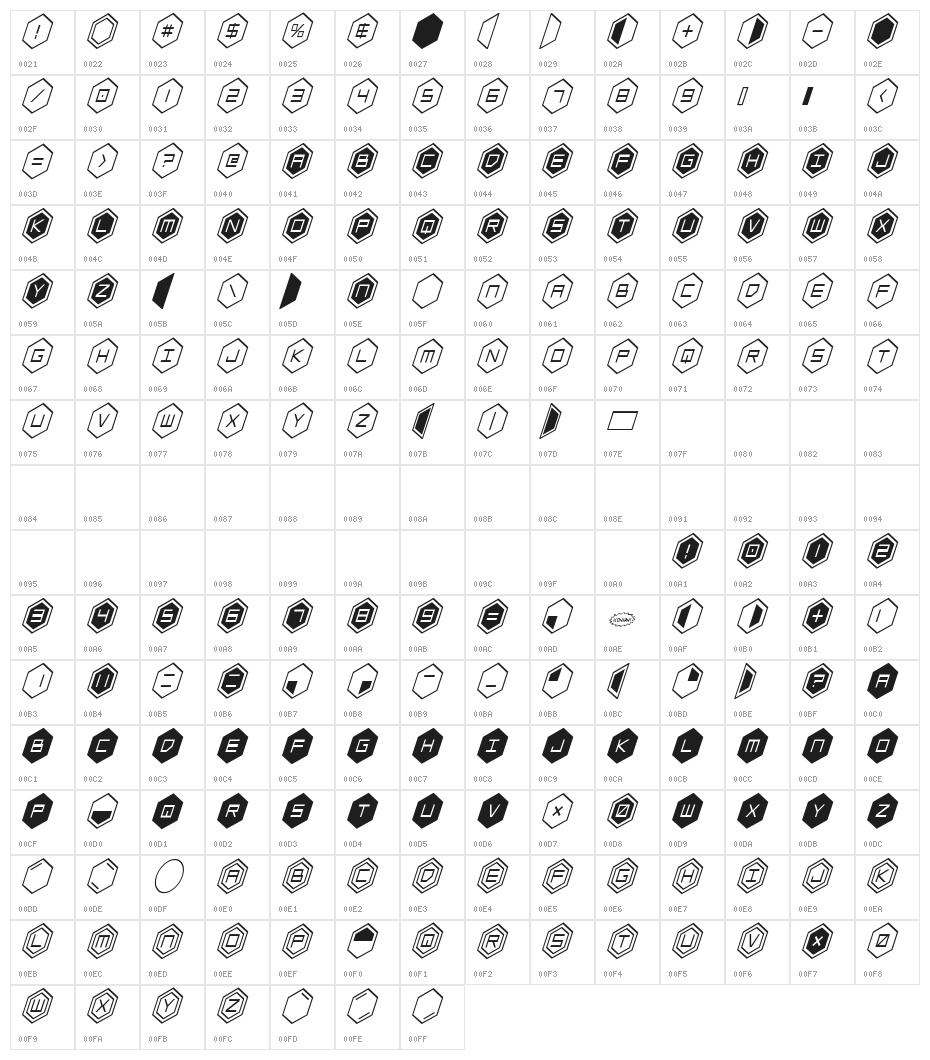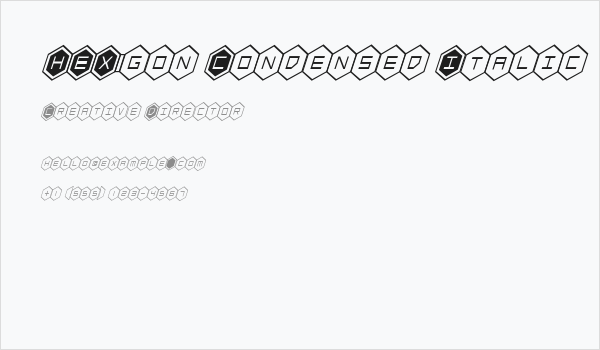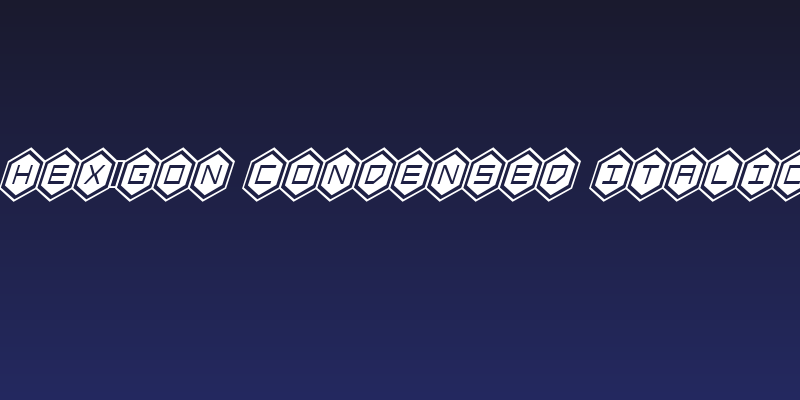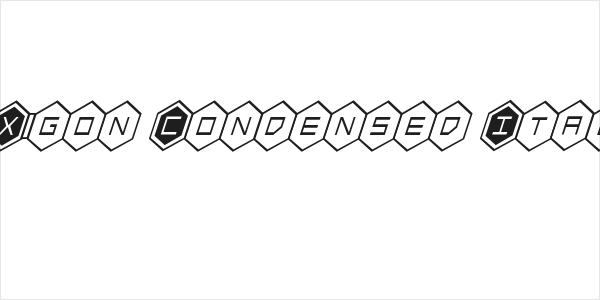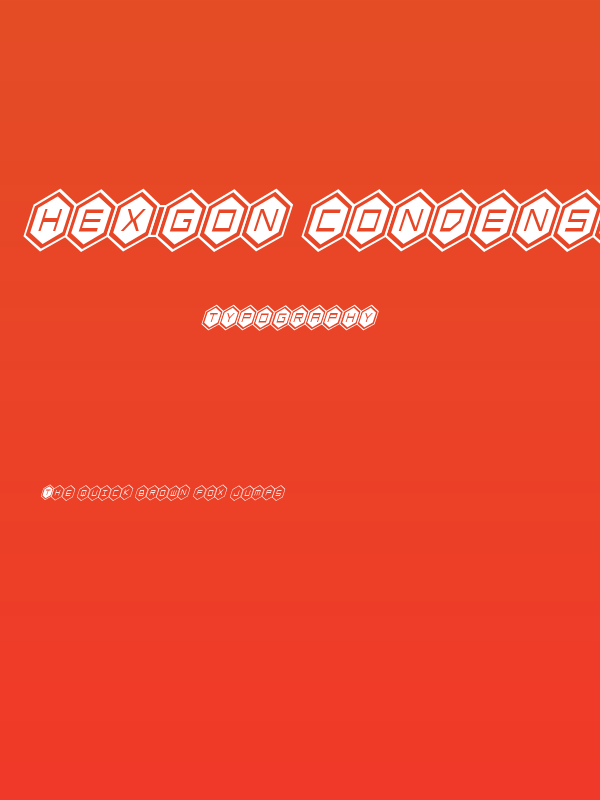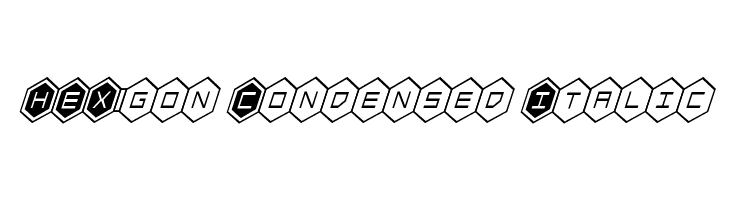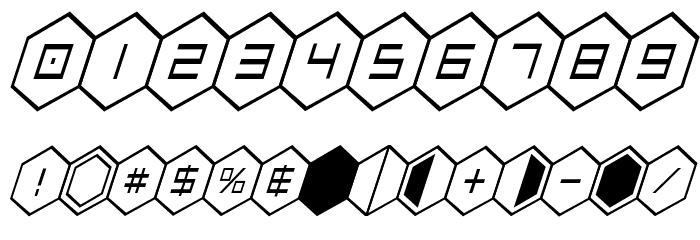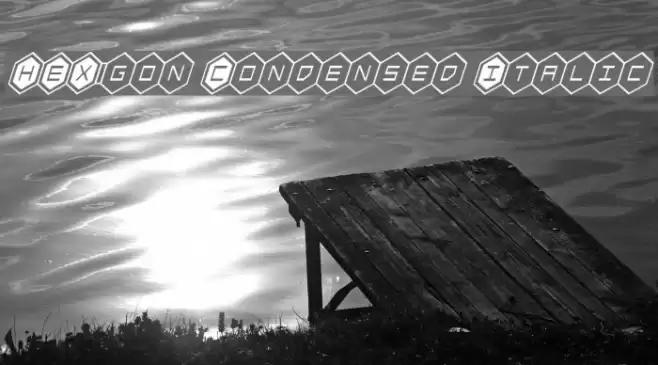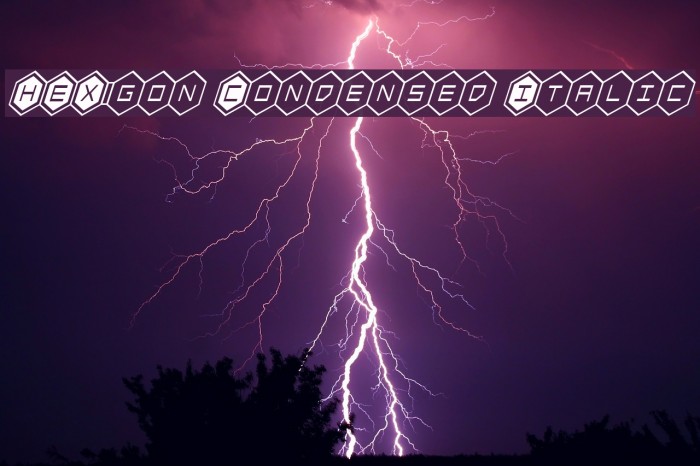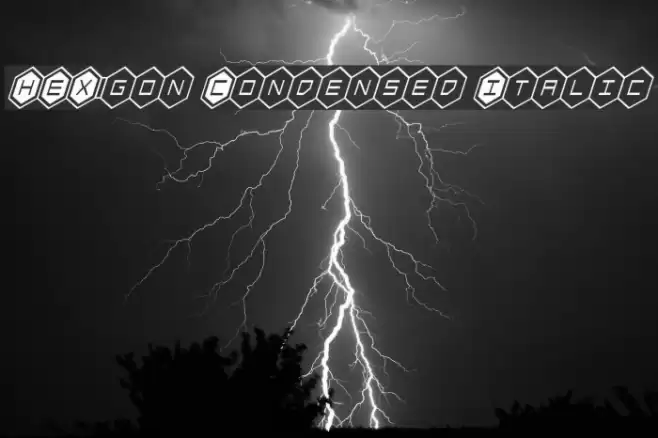
HEX:gon Condensed Italic Font
This font features a unique hexagonal design that gives each character a distinct geometric appearance. The letters are enclosed within hexagon shapes, creating a bold and eye-catching effect. The style is italicized, adding a dynamic and forward-leaning aspect to the text. The condensed nature of the font allows for efficient use of space, making it suitable for headlines and titles. The characters are uniformly spaced within their hexagonal boundaries, providing a consistent and structured look. The font's high contrast between the thick outlines and the inner strokes enhances readability and visual impact.
| Proposed Projects | Ideal for futuristic designs, tech branding, video game titles, and modern posters. |